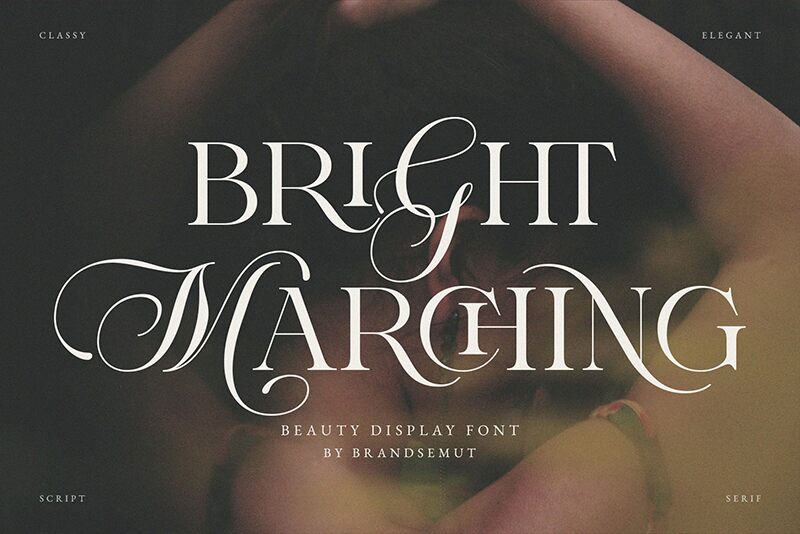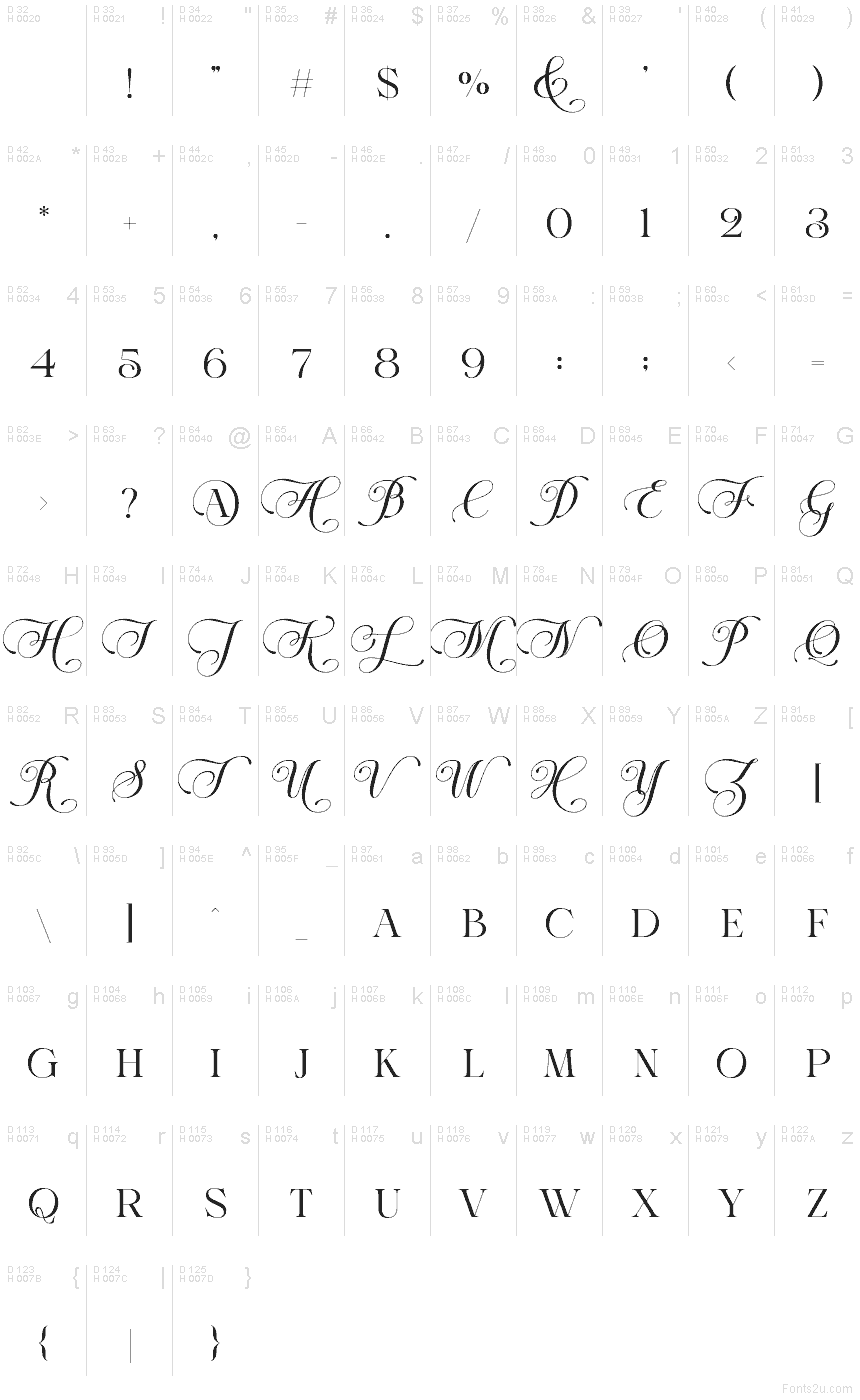
Bright Marching font by BrandSemut is a free decorative serif typeface with sweeping flourishes and fine, inky strokes that feel both delicate and confident. The tall, narrow letters seem to glide across the line, with looping capitals that add a sense of ceremony and romance without becoming fussy or unreadable at larger sizes.
Using Bright Marching, you can bring graceful drama to wedding invitations, save-the-dates, luxury packaging, boutique logos, event posters, and book covers. This free font shines as a hero wordmark or headline; pair it with a clean sans serif for body copy and keep plenty of white space so its elegant curves can really breathe.
Bright Marching